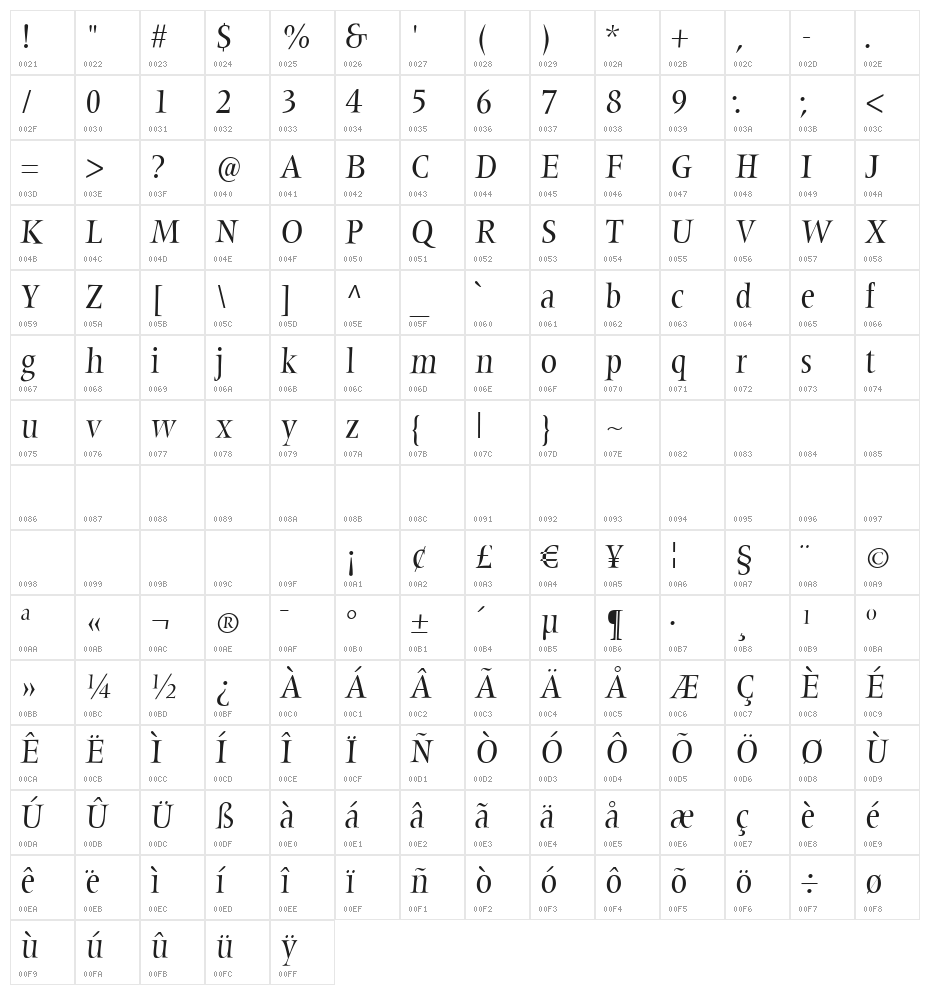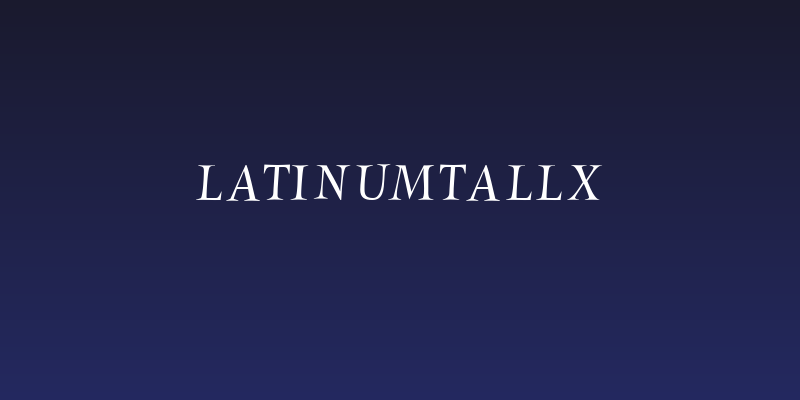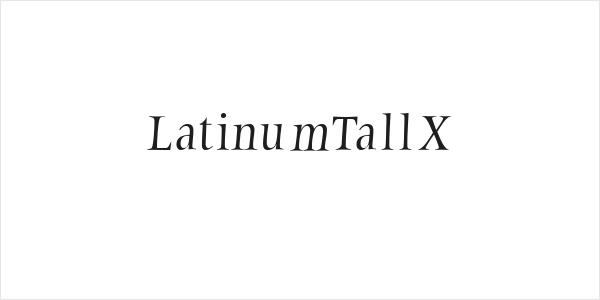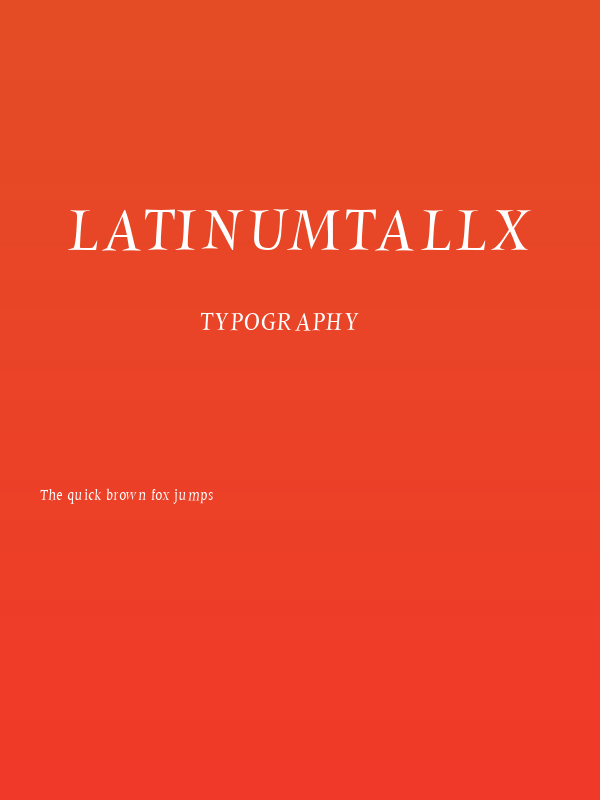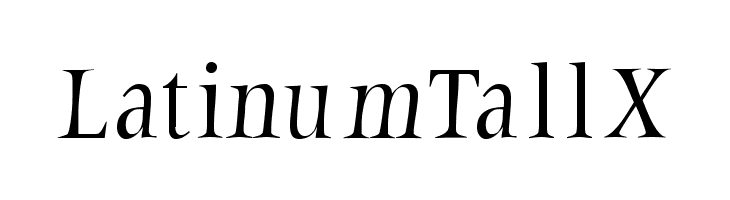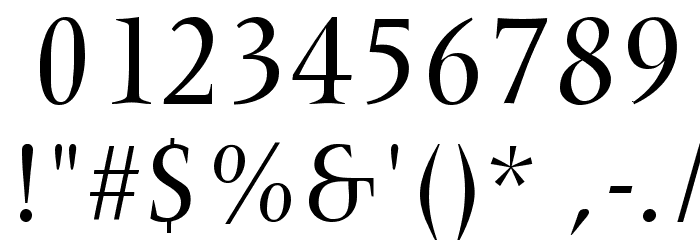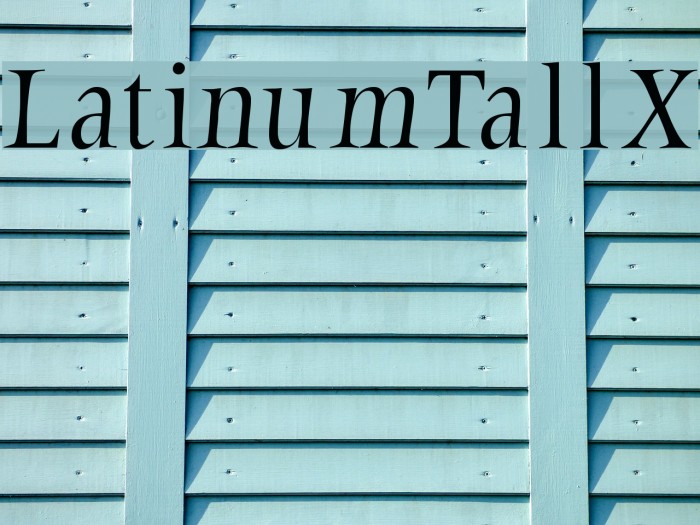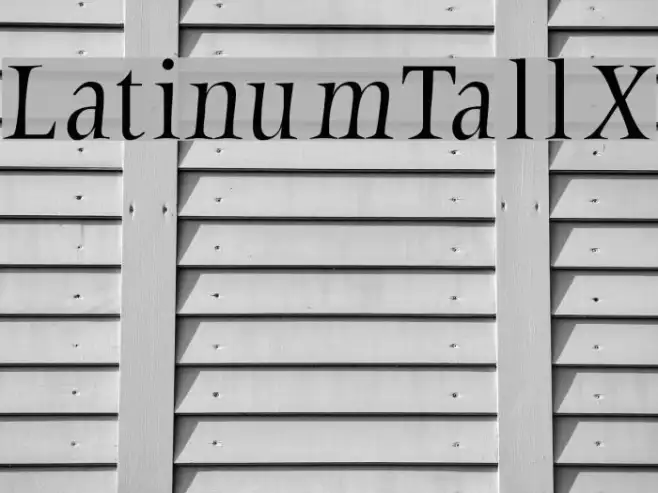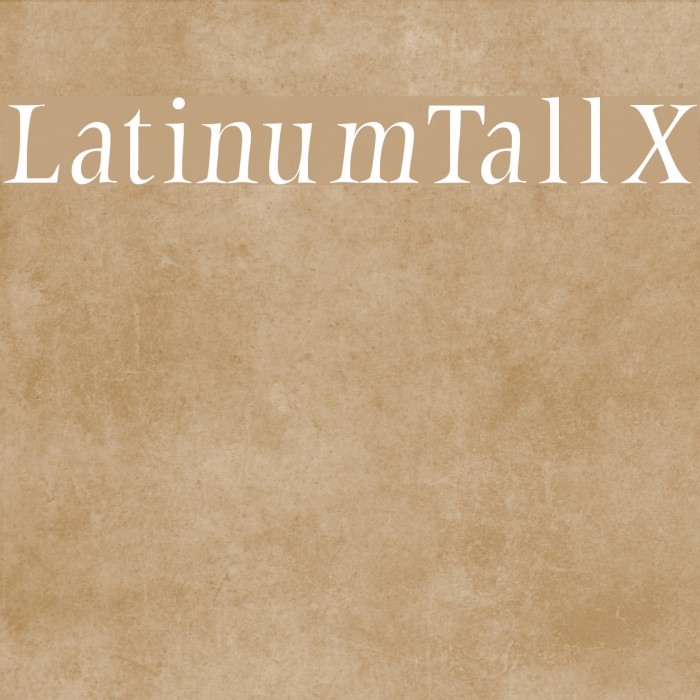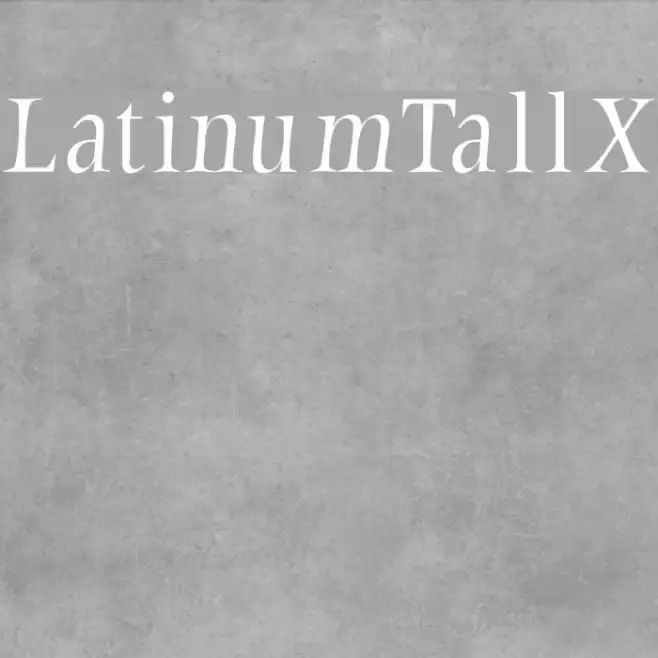
LatinumTallX Font
LatinumTallX Description
This font presents a classic serif style with elegant and elongated letterforms. The uppercase letters are tall and slightly narrow, giving a sophisticated and formal appearance. The lowercase letters maintain a consistent style with smooth curves and sharp serifs, enhancing readability. The numerals are proportional and align well with the overall design, while the special characters are crafted to match the font's refined aesthetic. The font's high contrast between thick and thin strokes adds to its elegance, making it suitable for formal and traditional applications.